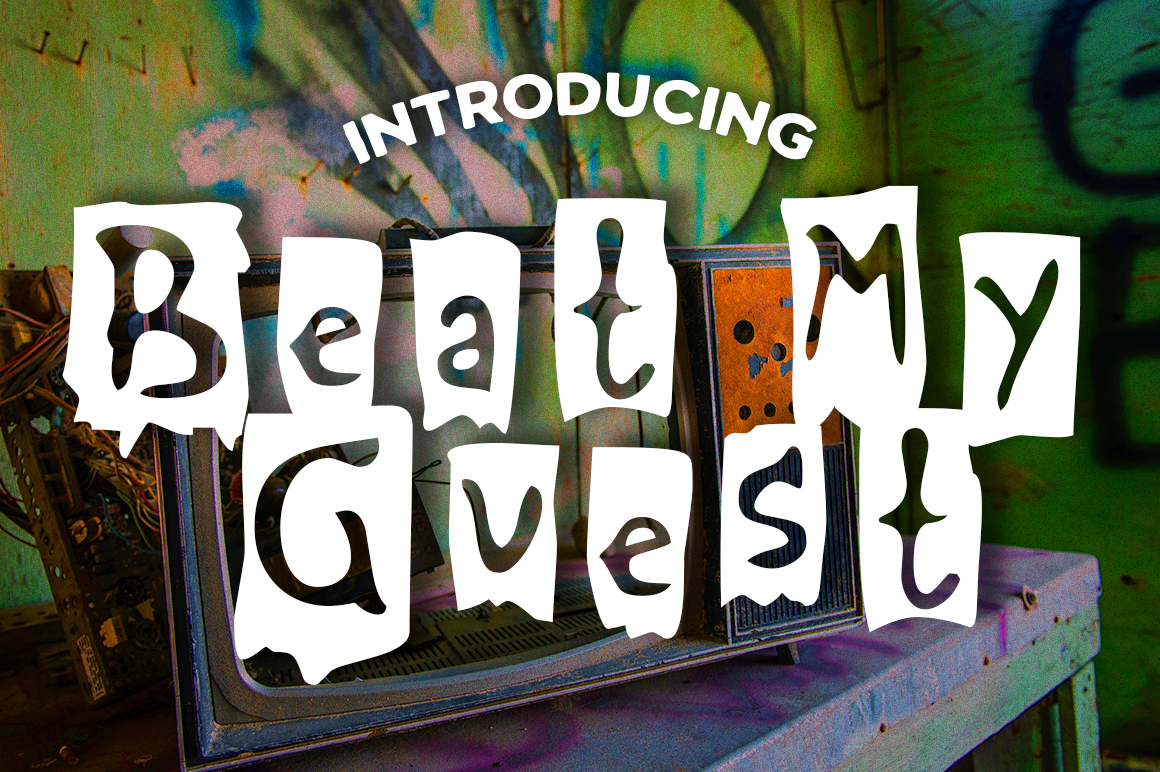
HomePersonal Use FreeBeat My Guest Personal Use Free Beat My Guest FacebookXPinterestWhatsApp 1 of 1 About Beat My Guest Font Beat My Guest is a grunge, horror inspired display font from beyond the grave! This is a great thematic punk font, free from Typodermic. DOWNLOAD NOW People also explored Ducoco Font Rigkult Font Snowbreak Font Head High Font Paggu Font Antonio Font Deathblood Font Sembilu Font Our Goodwill Font 411 0 TagsBeat My Guest Font Previous articleGreen FuzNext articleAdriator LEAVE A REPLY Cancel reply Comment: Please enter your comment! Name:* Please enter your name here Email:* You have entered an incorrect email address! Please enter your email address here Website: Save my name, email, and website in this browser for the next time I comment. Personal Use Free Pumpkins Candles Personal Use Free Read more about this font Elevate Your Halloween Designs with 500 Free High-Quality PNG Clipart Files Personal Use Free Read more about this font Aelten Personal Use Free Read more about this font Thruster Personal Use Free Read more about this font BLOG Top 10 Handwritten Fonts That Elevate Your Designs Top 10 Handwritten Fonts That Will Elevate Your Designs Handwritten fonts bring a warm, personal touch to every creative project. Whether you're designing logos, invitations,... Best Fonts for T-Shirt Design – Top 2025 Picks How to Cut Any Font on Cricut: Convert a Font to SVG (Free) Elegant Wedding Invitation Fonts – Handwritten & Script Fonts